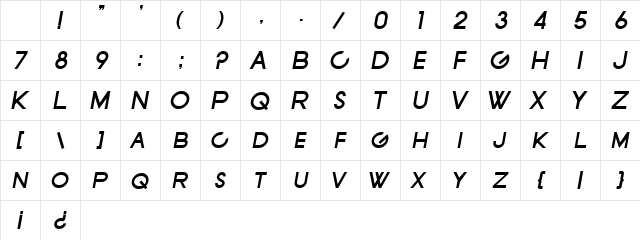
SF New Republic SC is a composed and adaptable typeface that performs quietly and consistently across a wide range of design contexts. The slanted form adds forward momentum and visual energy. Its bold stroke weight gives it real presence on the page.
Pro Tip: Use SF New Republic SC for emphasis, pull quotes, and subheadings where its slanted energy can add rhythm to the layout.